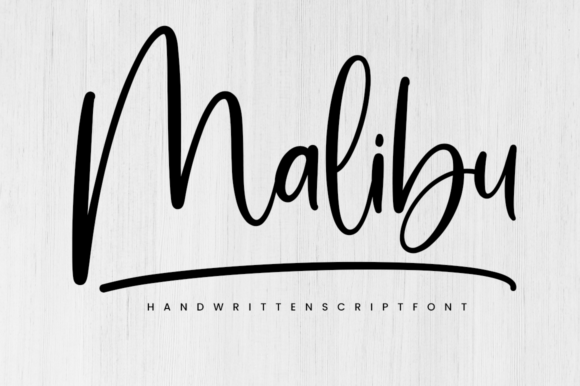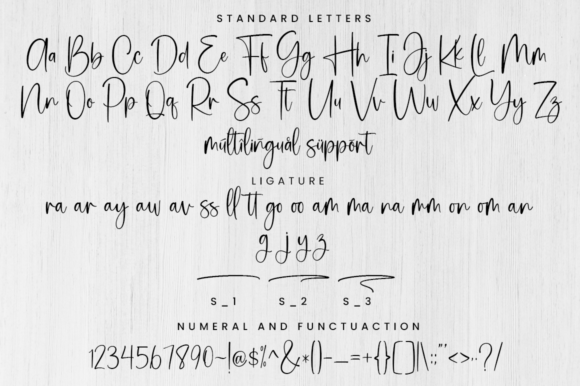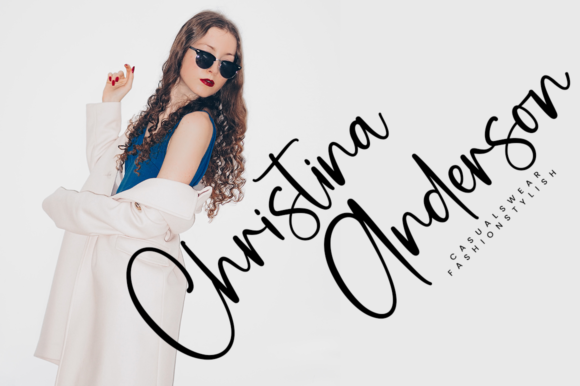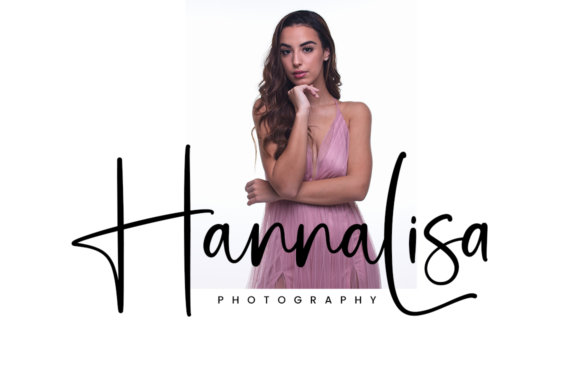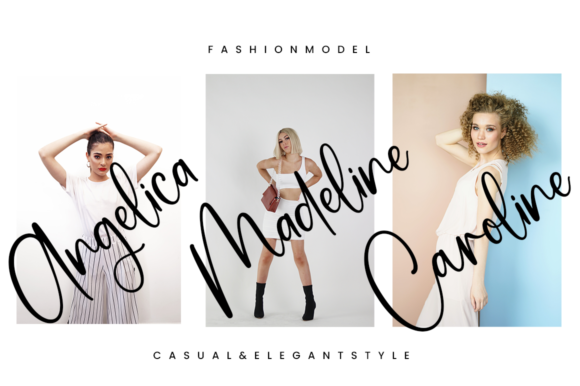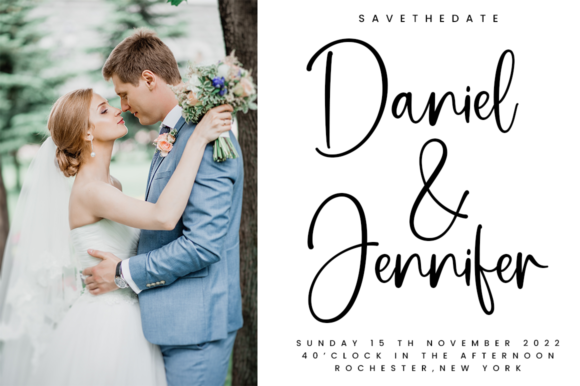
Malibu Font
Malibu is a lovely and delicate script font that exudes elegance and class. This font is PUA encoded which means you can access all of the glyphs and swashes with ease!